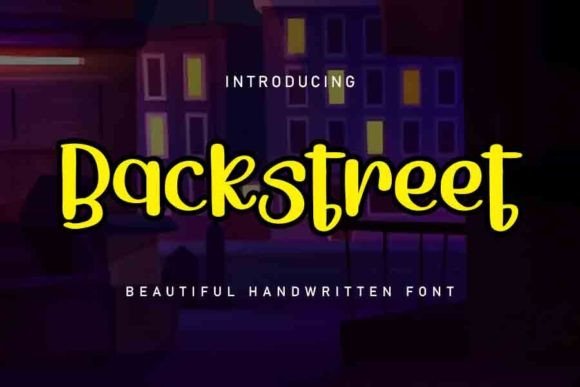
Introducing Backstreet Font, the ultimate solution for all your chalkboard quotes and teaching material needs! Developed by the talented shiddiq.art, this script font is guaranteed to elevate your designs with its authentic handwritten look and feel.
With Backstreet Font, you can effortlessly create captivating product labels that will leave a lasting impression on your customers. Its unique and artistic style brings a personal touch to any design, making it perfect for showcasing your products in a creative and eye-catching way.
One of the key benefits of Backstreet Font is its versatility. Whether you're designing labels for handmade crafts, gourmet food products, or trendy fashion items, this font will effortlessly adapt to suit your needs. Its elegant strokes and charming curves will enhance the visual appeal of your labels, making them stand out from the competition.
Not only does Backstreet Font provide a visually stunning experience, but it also conveys a sense of warmth and authenticity. By using this font, you can establish a genuine connection with your audience, evoking positive emotions and building trust in your brand.
Backstreet Font is more than just a font; it's a powerful tool that allows you to unleash your creativity and imagination. Its versatility and ease of use make it suitable for both beginners and seasoned designers alike. Whether you're creating digital designs or printed materials, this font will exceed your expectations every time.